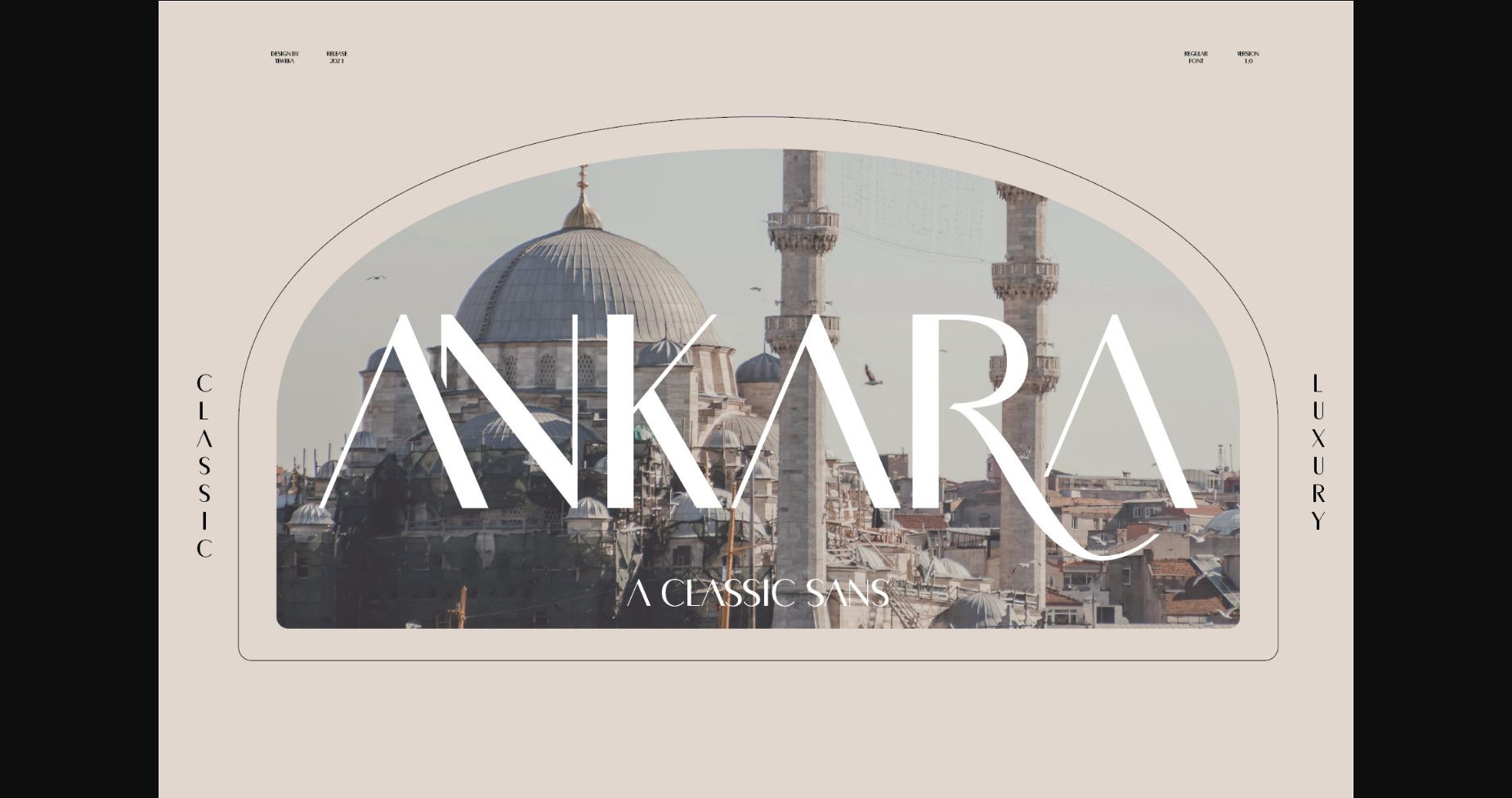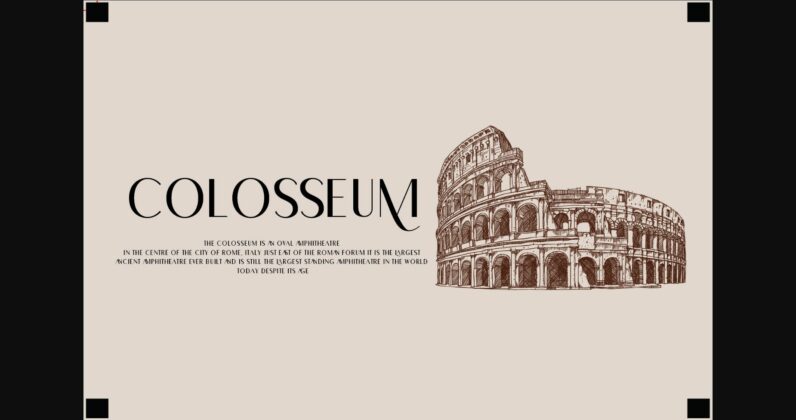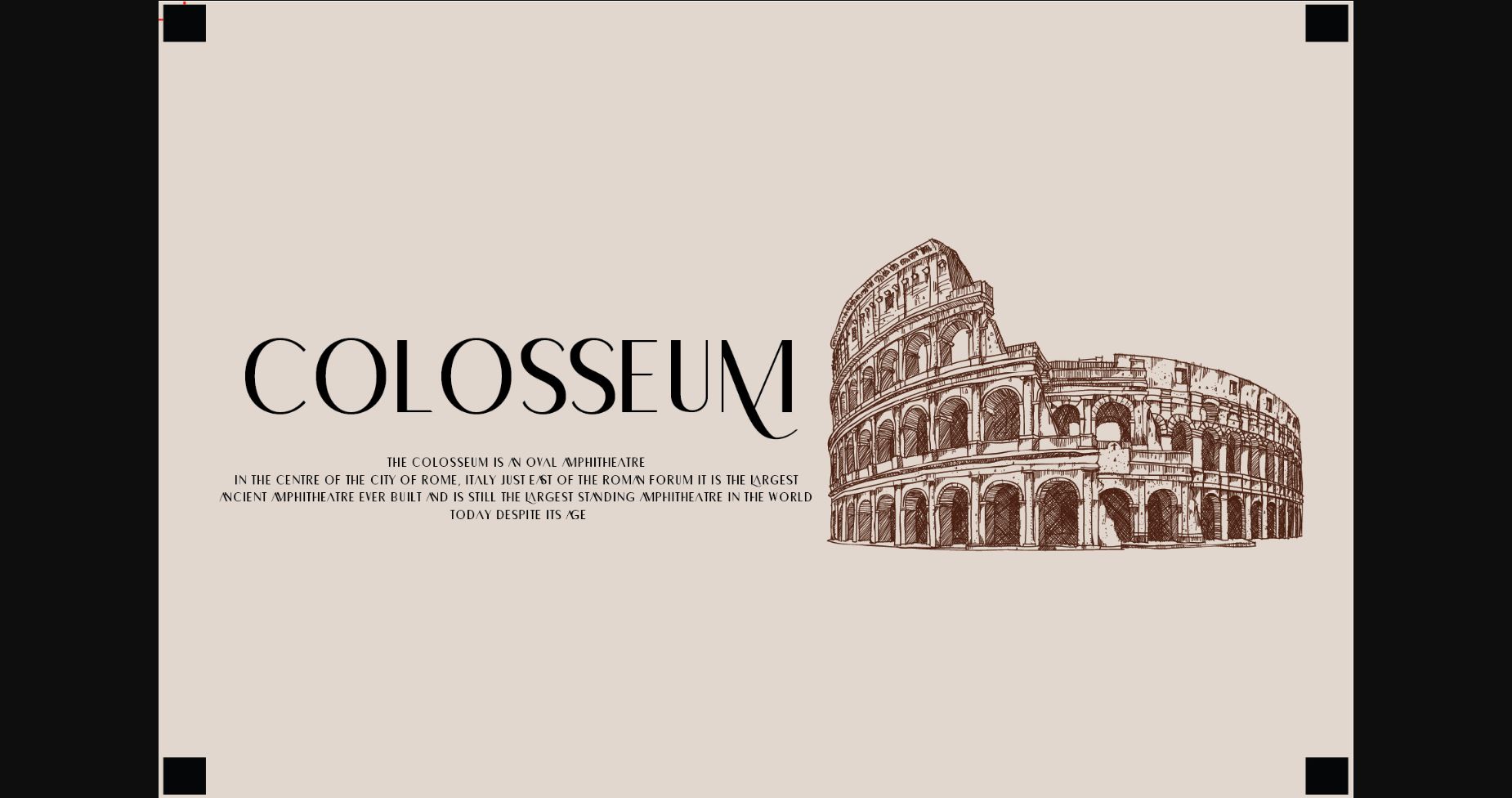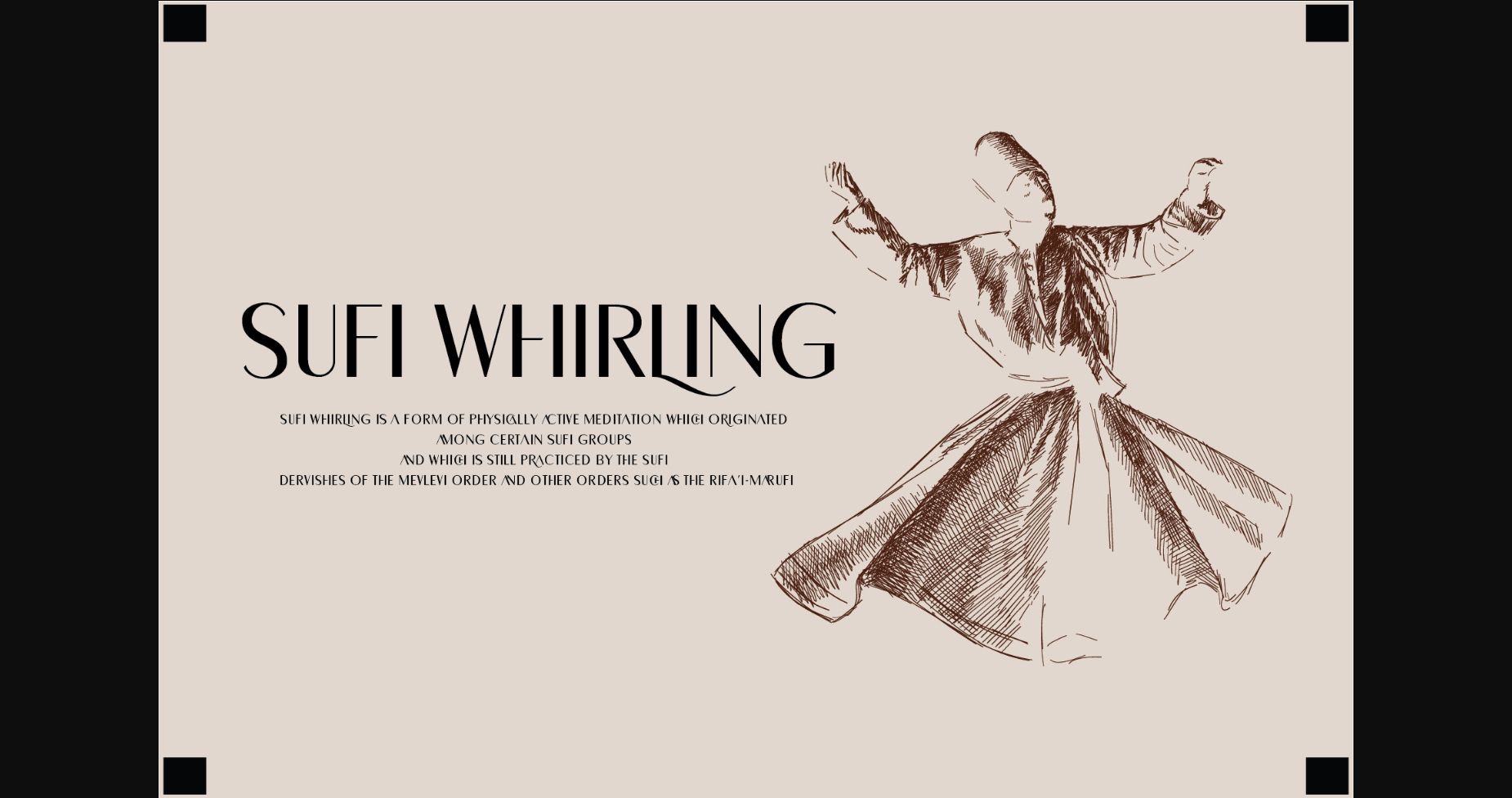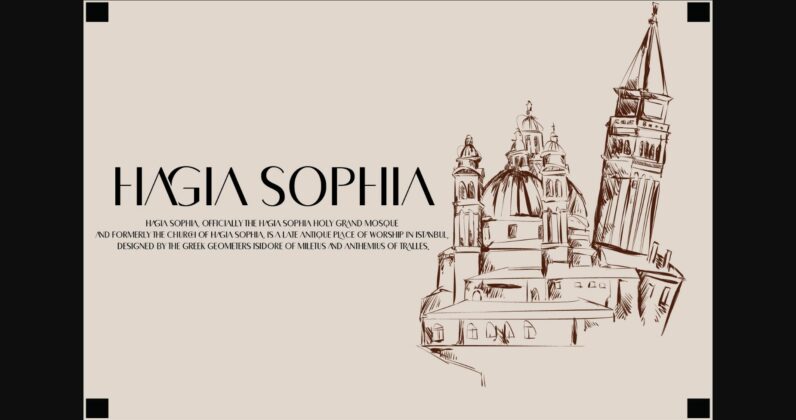
Ankara Font
About Ankara Font
Ankara is a splendid sans serif font created with luxury and authenticity in mind. It is perfect for creative projects that need stylish and exquisite typography, such as personal branding projects, jewelry logos, fashion magazines, invitations, and more.